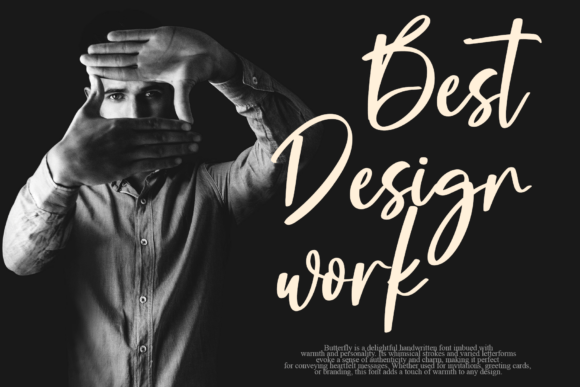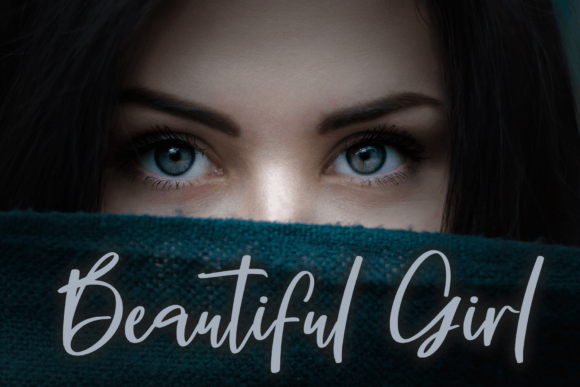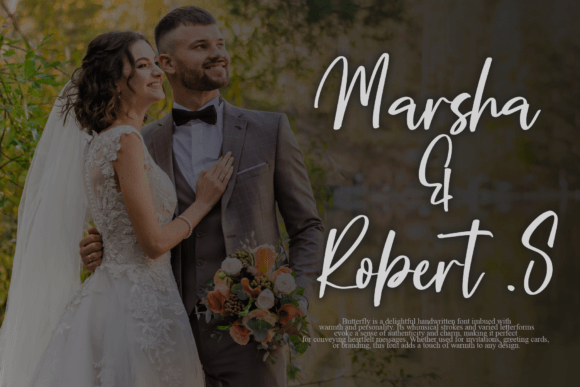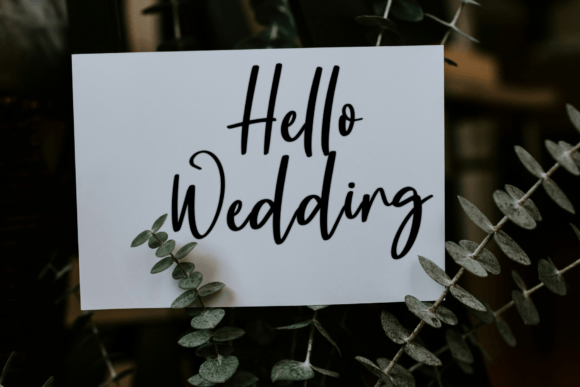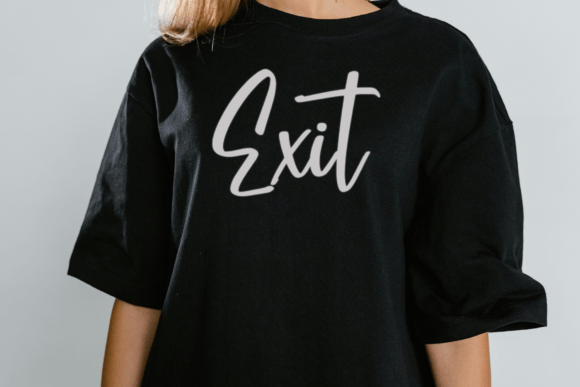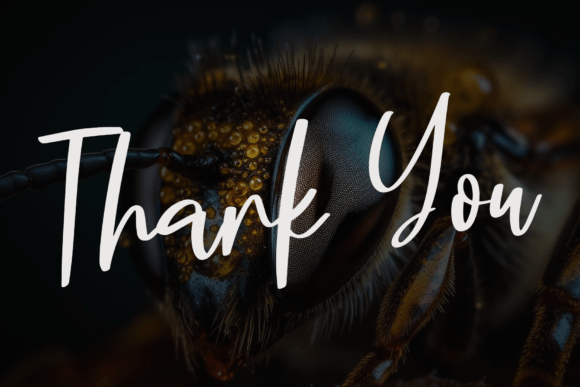
Introducing Butterfly Font: A Delightful Handwritten Font with Warmth and Personality
In the world of typography, a font can make all the difference in conveying the intended message and evoking emotions. For designers and crafters looking for a font that exudes warmth, personality, and charm, look no further than Butterfly Font. This delightful handwritten font is designed to add a touch of whimsy and authenticity to any design, making it perfect for a variety of creative projects.
The Characteristics of Butterfly Font
Butterfly Font is a handwritten font that boasts whimsical strokes and varied letterforms, giving it a unique and charming personality. The font’s design is imbued with warmth, making it ideal for conveying heartfelt messages. The letters are carefully crafted to evoke a sense of authenticity, which is perfect for designs that require a personal touch.
One of the standout features of Butterfly Font is its varied letterforms. Each letter is uniquely designed, with subtle variations in shape and size, giving the font a natural and organic feel. The strokes are smooth and flowing, with a gentle flair at the terminals, adding to the font’s whimsical charm.
Uses for Butterfly Font
Butterfly Font is a versatile font that can be used for a variety of creative projects. Here are some ideas to get you started:
• Invitations: Whether it’s a wedding invitation, birthday party invite, or baby shower announcement, Butterfly Font is perfect for adding a touch of warmth and personality to your designs.
• Greeting Cards: Create beautiful and heartfelt greeting cards for special occasions, such as holidays, birthdays, or get-well wishes.
• Branding: Use Butterfly Font to add a personal touch to your brand’s identity. It’s perfect for creating a warm and welcoming brand image.
• Stationery: Design beautiful stationery, such as notebooks, journals, or letterheads, with Butterfly Font.
• Crafting: If you’re a crafter, Butterfly Font is perfect for adding a personal touch to your DIY projects, such as scrapbooking, card making, or paper crafting.
Why Choose Butterfly Font?
So, why choose Butterfly Font over other fonts? Here are a few reasons:
• Unique and Charming: Butterfly Font has a unique and charming personality that will set your designs apart from others.
• Warm and Inviting: The font’s warm and inviting design makes it perfect for conveying heartfelt messages.
• Versatile: Butterfly Font can be used for a variety of creative projects, from invitations to branding.
• Easy to Read: The font is easy to read, making it perfect for designs that require a clear and legible font.
Tips for Using Butterfly Font
Here are a few tips for using Butterfly Font in your designs:
• Pair with Other Fonts: Butterfly Font pairs well with other fonts, such as serif or sans-serif fonts. Experiment with different font combinations to find the perfect pairing.
• Use for Headings and Body Text: Use Butterfly Font for headings and body text to create a cohesive and visually appealing design.
• Experiment with Colors: Butterfly Font looks great in a variety of colors. Experiment with different colors to find the perfect shade for your design.
In conclusion, Butterfly Font is a delightful handwritten font that is perfect for designers and crafters looking to add a touch of warmth and personality to their designs. With its whimsical strokes, varied letterforms, and charming personality, Butterfly Font is sure to make your designs stand out. Whether used for invitations, greeting cards, branding, or crafting, this font is sure to become a favorite in your design arsenal.